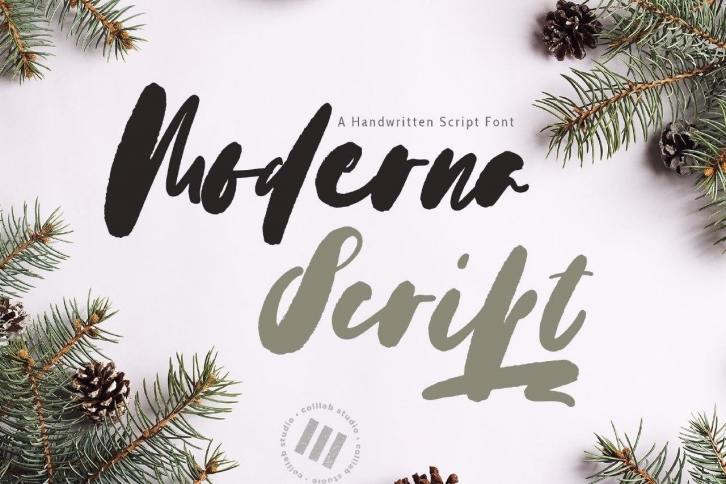
Moderna Script is a trendy and unique font with an authentic style. It was designed by colllab studio and it's a great choice for creative people who need such a font. It was released on August 26, 2020 and the file size is 13.32 MB. Moderna Script will add an organic vibe to any design idea!